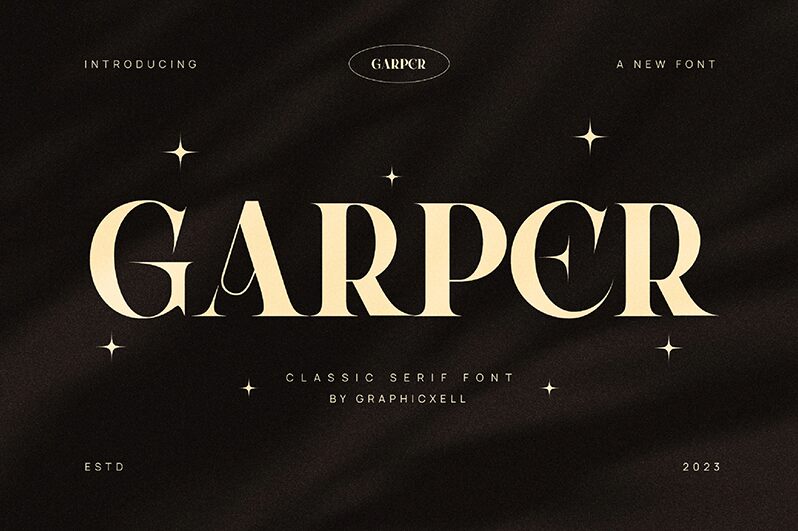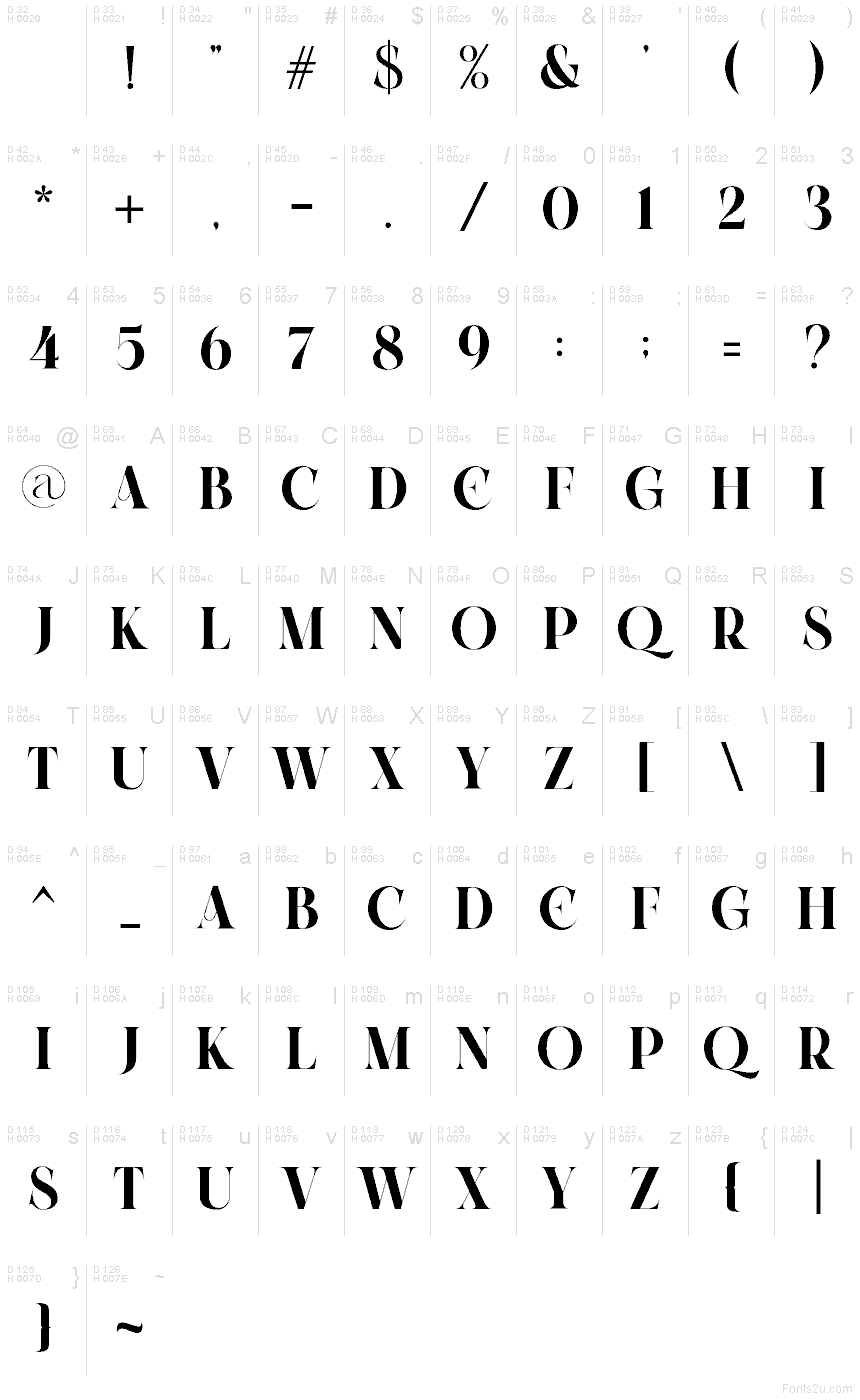
Garper
Garper font by Graphicxell is a free serif typeface with a bold, theatrical voice. Each letter leans into dramatic stroke swings and knife-sharp serifs, while sculpted inner counters carve out leaf-like pockets of white that catch the eye. The result feels luxe and editorial—inky, dense, and confident—yet surprisingly readable at larger sizes.
Using Garper, headlines and posters snap to attention, while fashion branding, logos, album art, packaging, and event invitations gain a polished edge. Those carved interiors create a rhythmic sparkle that holds up in tight wordmarks and short titles. Pair this free font with a light geometric sans for body copy, or let Garper breathe with generous tracking at big sizes.